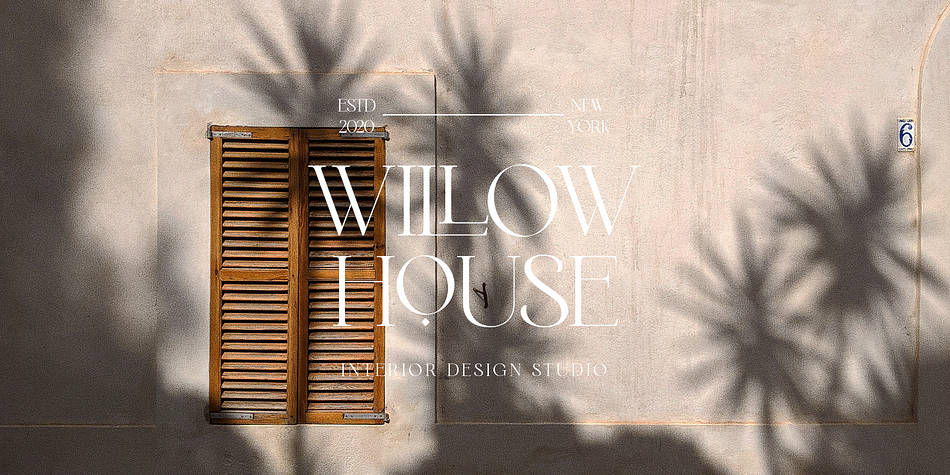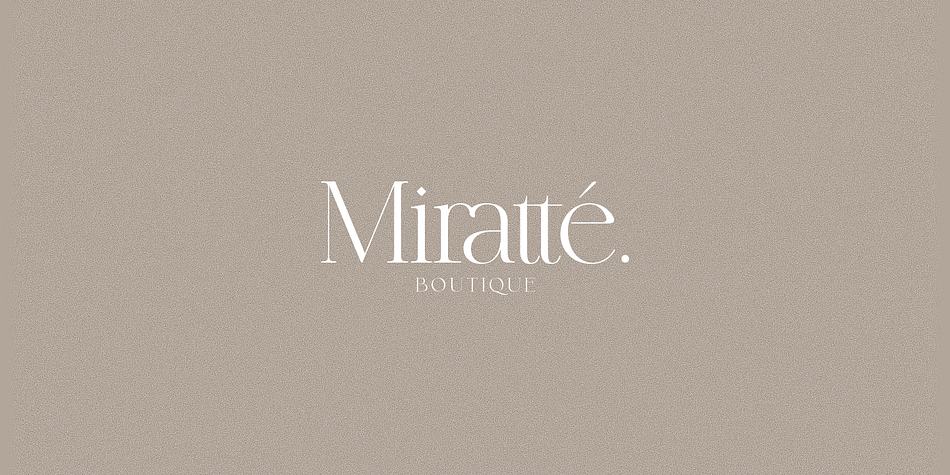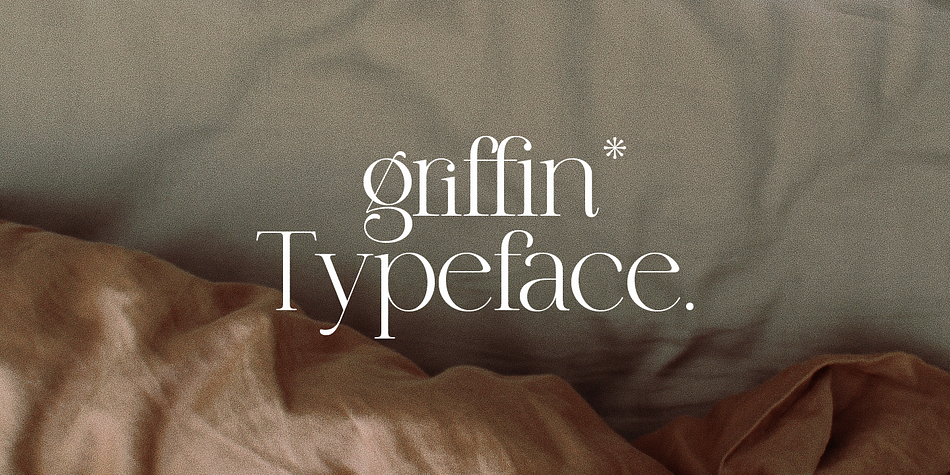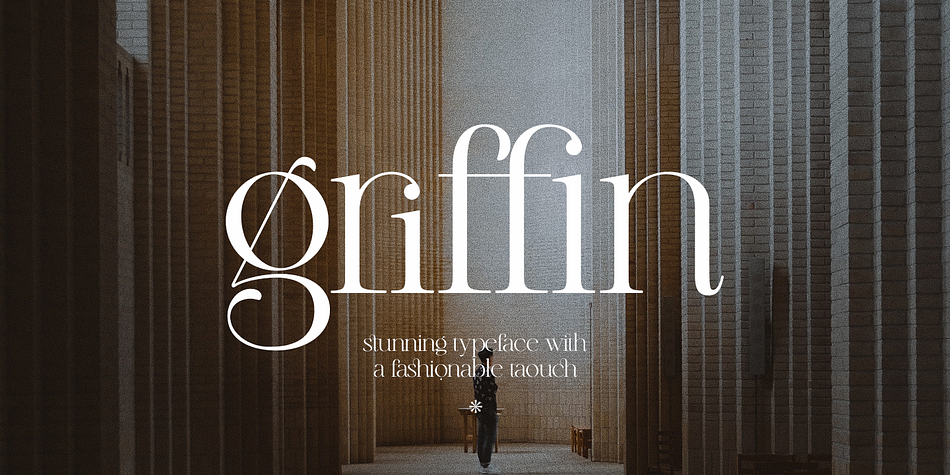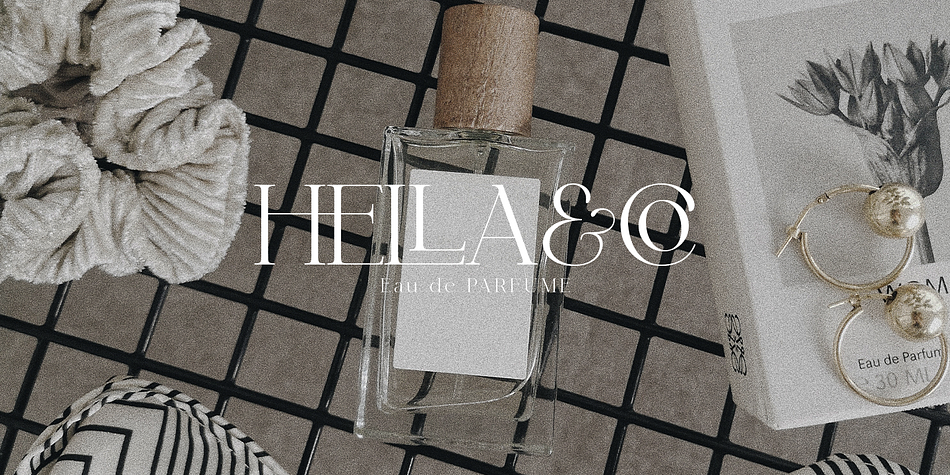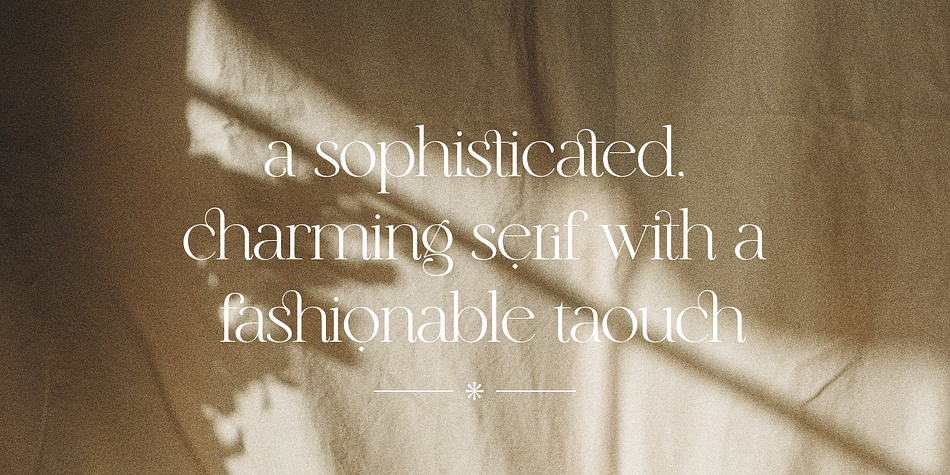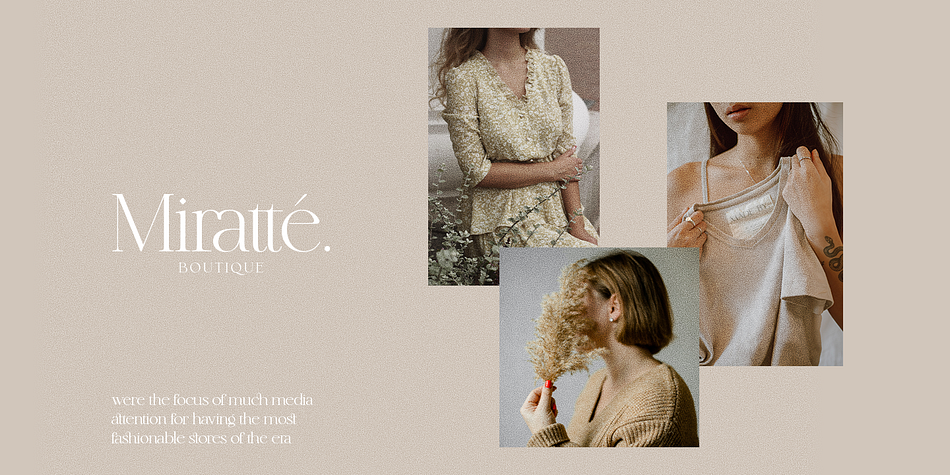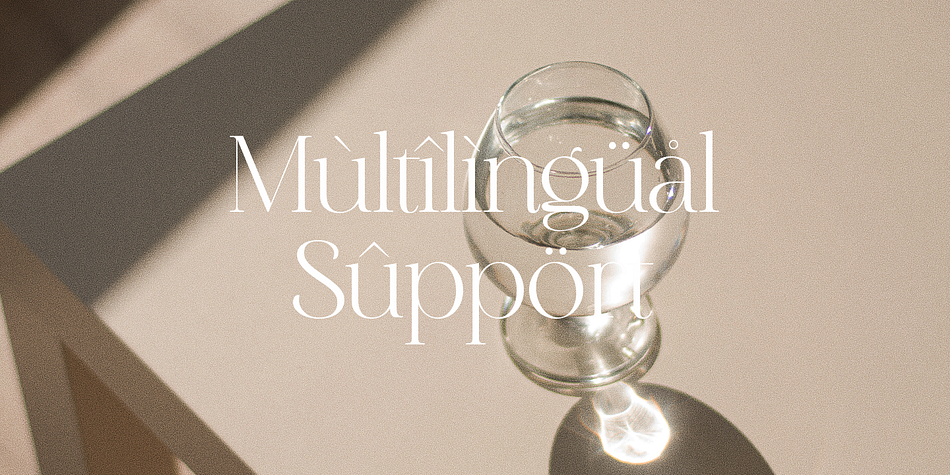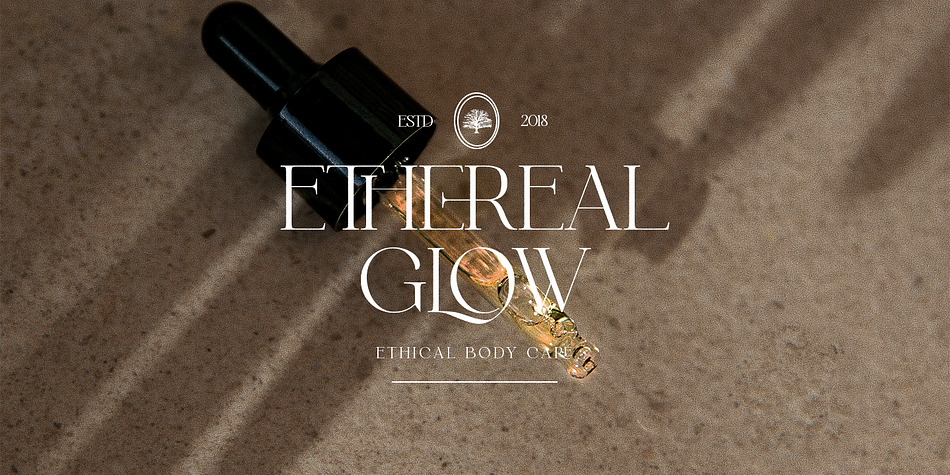
Griffin
Griffin is a display serif font family published by Dealita Studio.
Griffin a form of Elegant Serif is a fashionable and modern elegant serif font with some sexy stylish extras
Griffin is perfect for branding projects, logos, wedding designs, social media posts, advertisements, product packaging, product designs, label, photography, watermark, invitation, stationery, and any projects that need handwriting taste.
• Lowercase uppercase
• Numbers and punctuation
• Multilingual
• Alternates & Ligatures